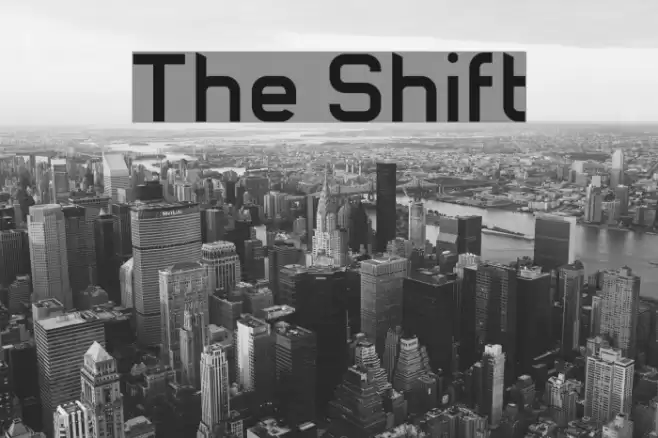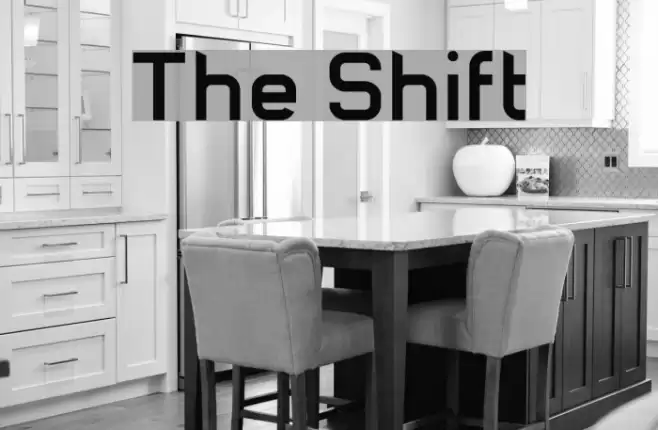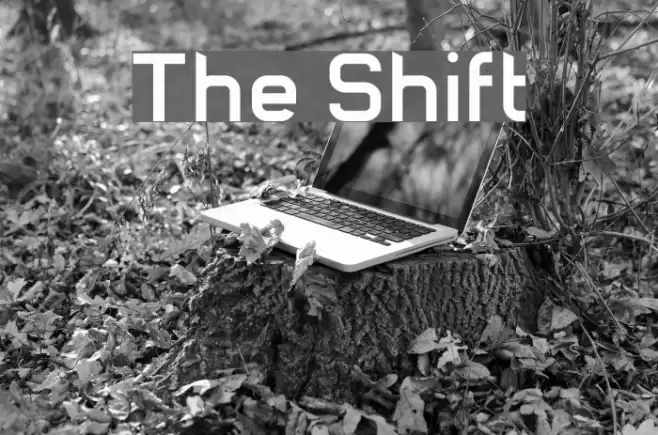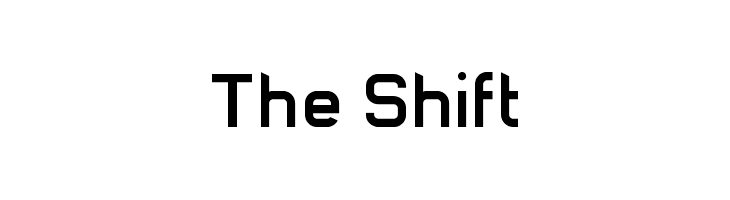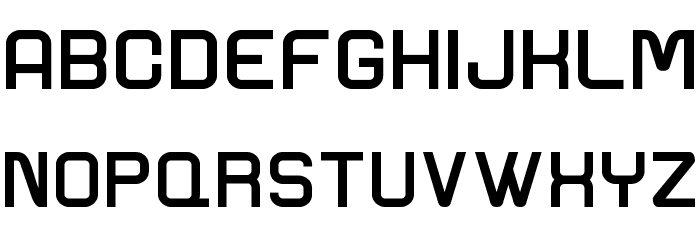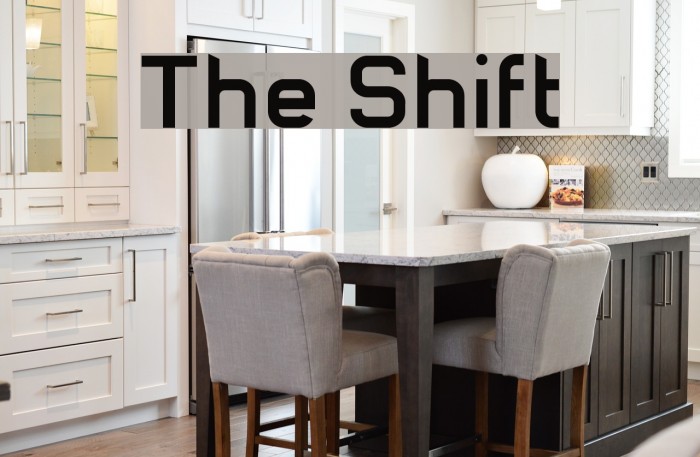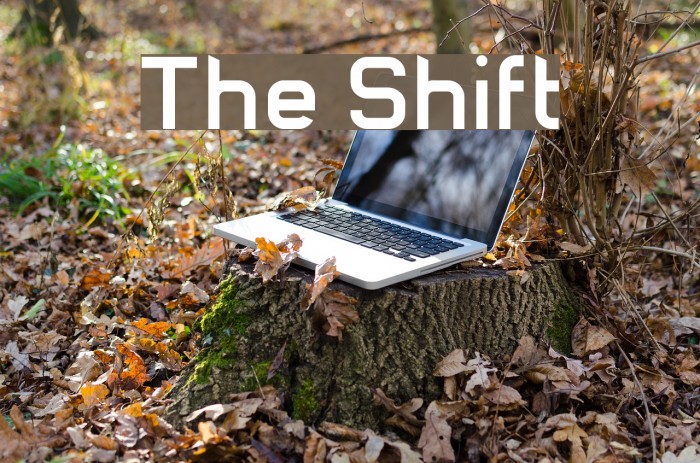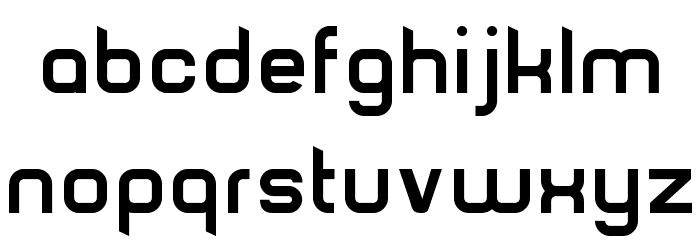
The Shift Font
The Shift Description
This font features a modern and geometric design with a clean and structured appearance. The characters are bold and have a uniform stroke width, giving them a strong presence on the page. The uppercase letters are particularly striking, with a squared-off look that adds to the font's contemporary feel. The lowercase letters maintain the same geometric style, ensuring consistency across all text. The overall design is sleek and minimalistic, making it suitable for a variety of applications where clarity and impact are desired.
A modern, geometric font with bold, uniform strokes and a sleek, minimalistic design from Uncategorized fonts.
- Proposed Projects: Ideal for branding, headlines, posters, and digital media where a modern and impactful look is needed.